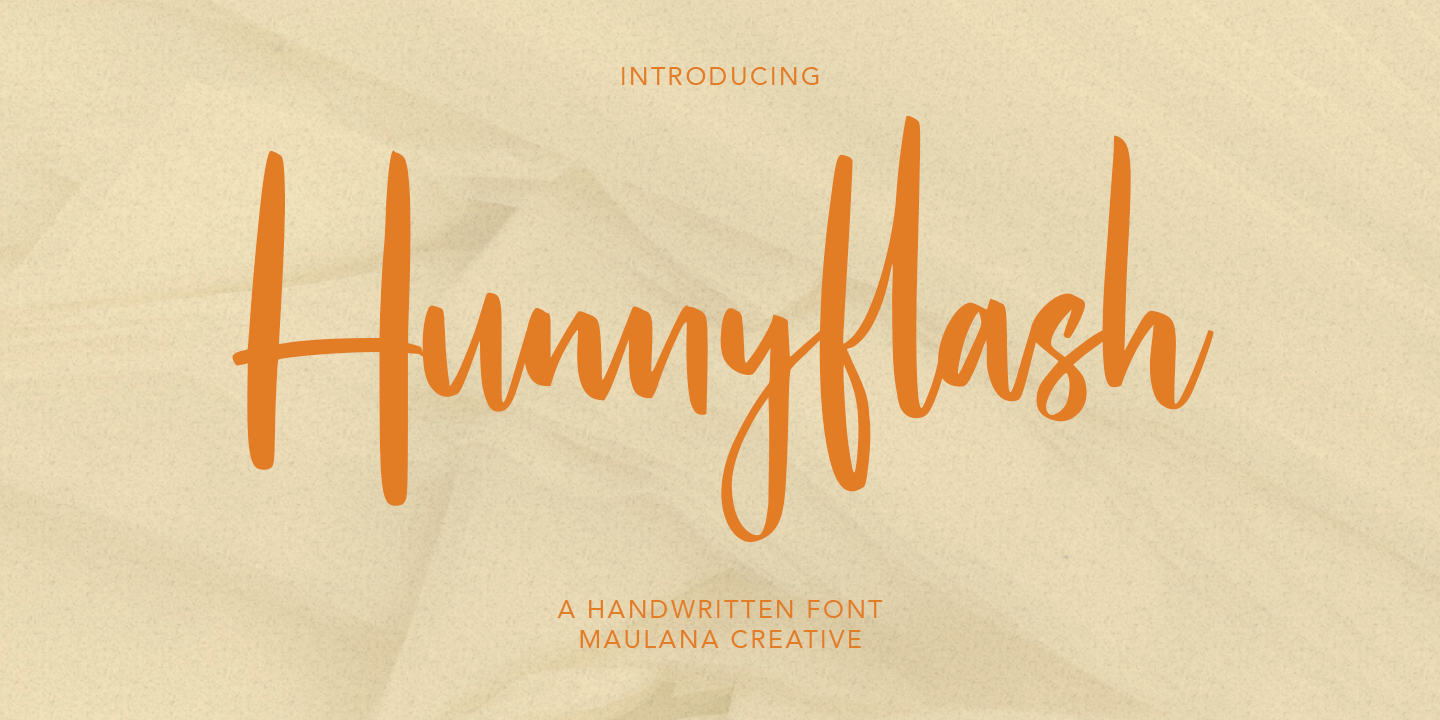
This energetic typeface excels in various playful applications including candy store branding, children's animation titles, birthday party invitations, toy packaging, ice cream parlor menus, comic book lettering, youth fashion labels, and social media graphics. The Hunnyflash Font bursts with sweetness and dynamic energy through its bouncy letterforms that combine the golden warmth of honey with lightning-fast visual excitement.
What makes this font truly exciting is its irresistible combination of sugary sweetness and electric energy, creating characters that seem to buzz with honeybee vitality and flash with golden sparkle. The playfully crafted letters feature rounded terminals, energetic tilts, and whimsical proportions that make every word feel like a burst of sunshine and sugar rush combined. Its distinctive personality merges childlike wonder with professional polish, creating typography that's both fun and functional.
The Hunnyflash Font family includes sweet variations: Regular, Bold, Light, Extra Bold, and Outline styles, plus bonus honey drips and sparkle elements. Each family member maintains the signature sweet-and-flashy character while providing versatility for creating designs that range from subtly sweet to explosively energetic.